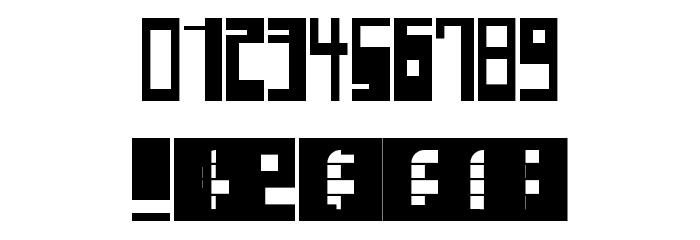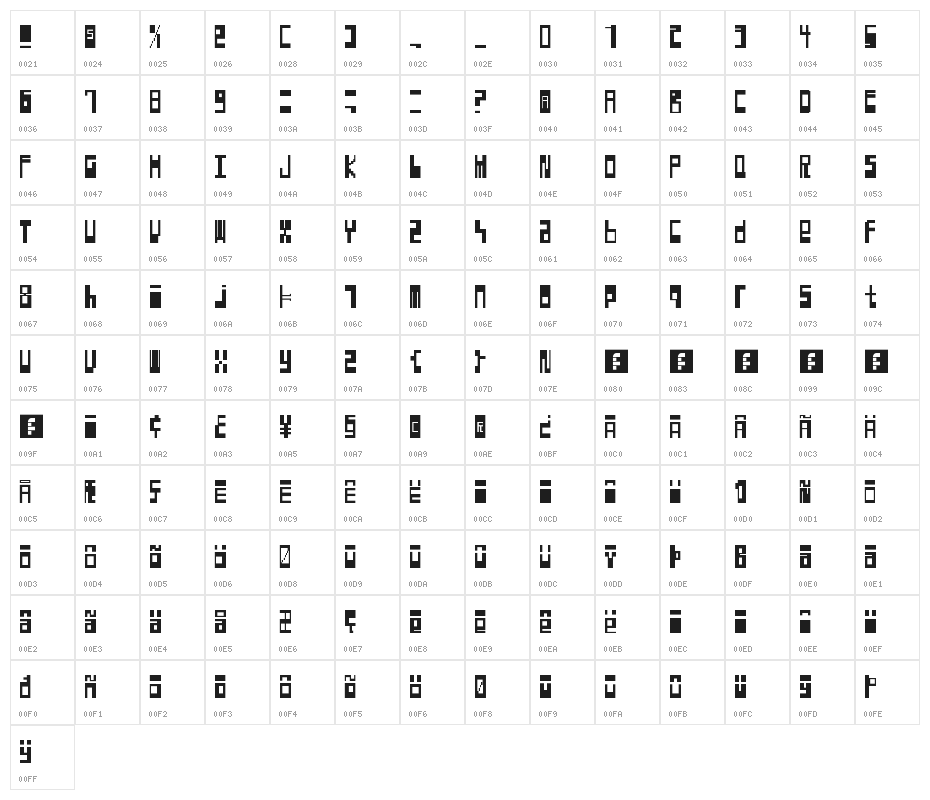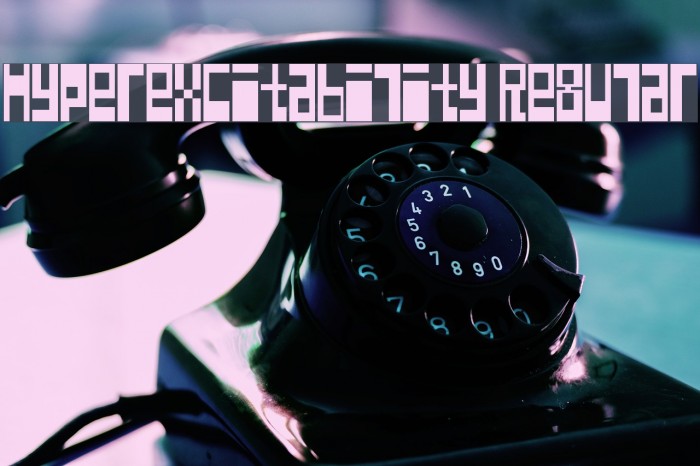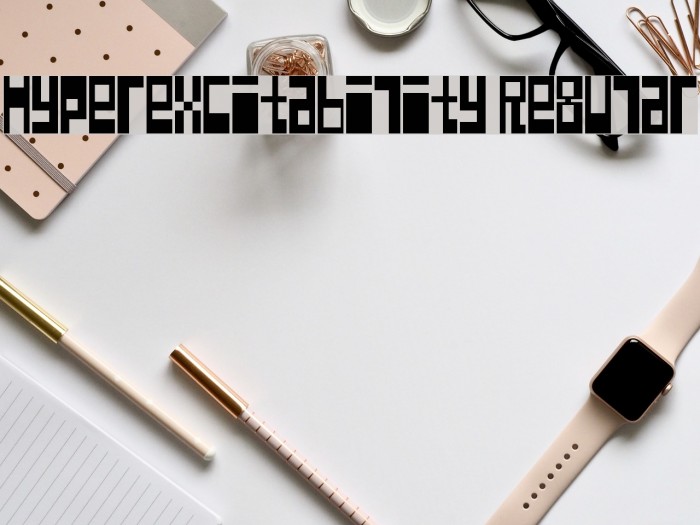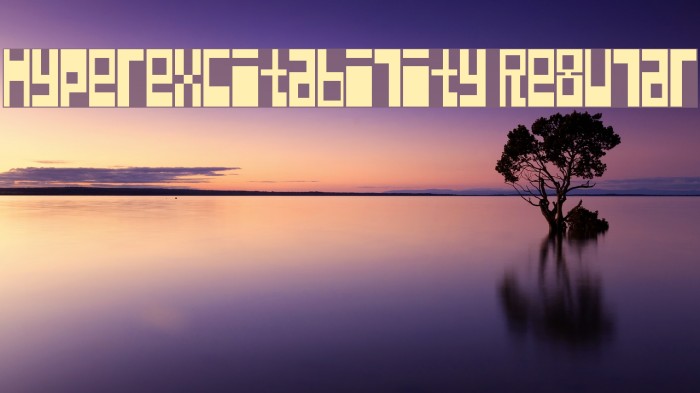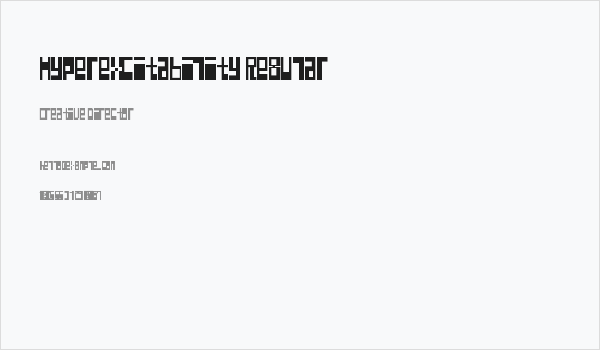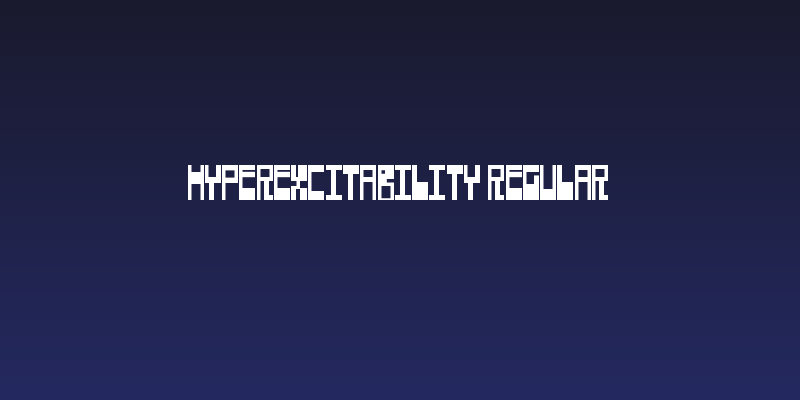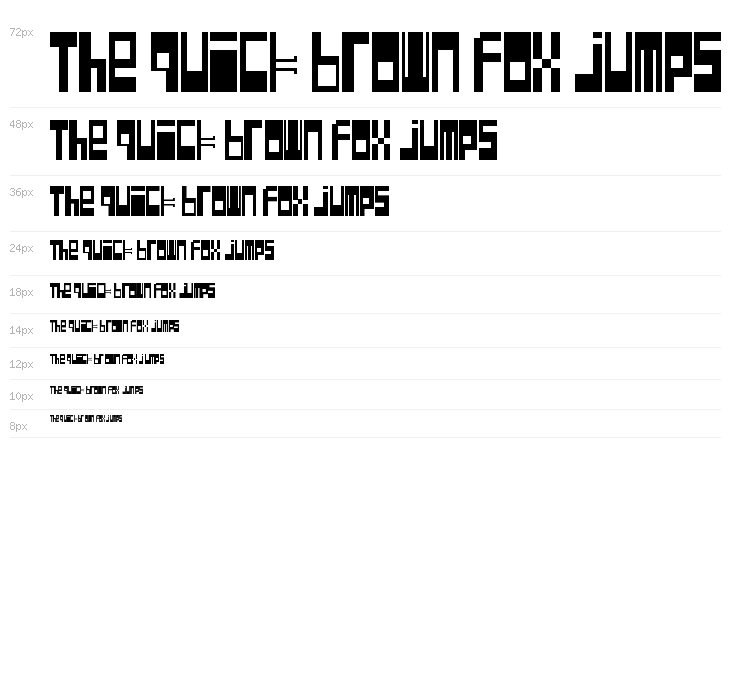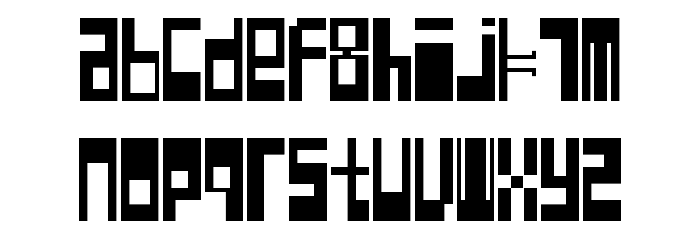
Hyperexcitability Regular Font
Hyperexcitability Regular Description
This font features a bold, geometric design with a distinctly modern and digital aesthetic. The characters are constructed with sharp, angular lines and a blocky structure, giving it a futuristic and tech-inspired look. The uppercase and lowercase letters maintain a consistent height, contributing to a uniform appearance. The numerals and special characters follow the same stylistic approach, ensuring cohesion across all glyphs. This font's unique style makes it stand out, ideal for projects that require a strong visual impact.
| Proposed Projects | Ideal for tech-related branding, digital artwork, video game design, and futuristic-themed posters. |